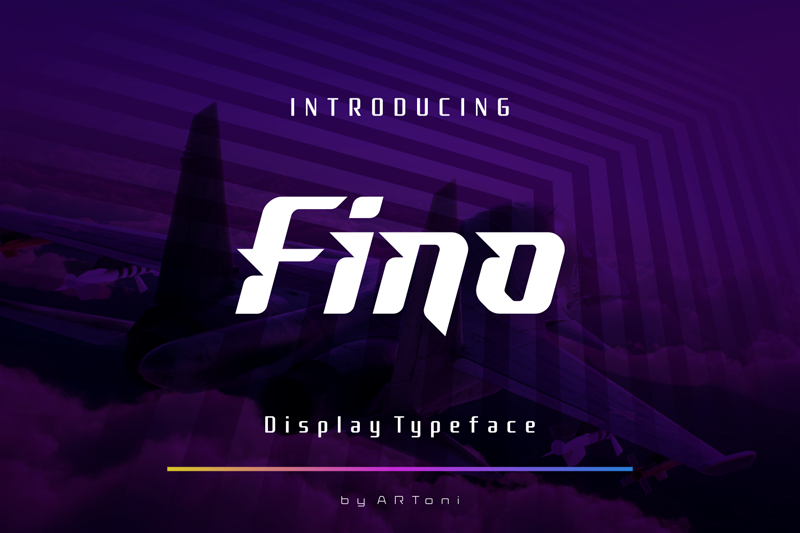
Preview and download Fino Font. Created by Anthonie Van Hayu in Techno Sci-fi styles with Free for personal use license.
Fino is a cool and sweet display font with a fun feel. Get inspired by its dynamic look. By installing or using this font, you are agree to the Product Usage Agreement: 1. This font is ONLY for PERSONAL USE. NO COMMERCIAL USE ALLOWED! 2. You are requires a license for PROMOTIONAL or COMMERCIAL use. 3. Any question fill free to ASK ayuda.smd@gmail.com THANKS ------------------- INDONESIA: Dengan meng-install font ini, anda dianggap mengerti dan menyetujui semua syarat dan ketentuan penggunaan font dibawah ini: 1. Font ini hanya dapat digunakan untuk keperluan "Personal Use", atau untuk keperluan yang sifatnya tidak "komersil", alias tidak menghasilkan profit atau keuntungan dari hasil memanfaatkan/menggunakan font saya. Baik itu untuk individu, Agensi Desain Grafis, Percetakan, atau Perusahaan/Korporasi. 2. DILARANG KERAS menggunakan atau memanfaatkan font ini untuk kepeluan Komersial, baik itu untuk Iklan, Promosi, TV, Film, Video, Motion Graphics, Youtube, atau untuk Kemasan Produk ( baik Fisik ataupun Digital) atau Media apapun dengan tujuan menghasilkan profit/keuntungan. 3. Menggunakan font ini untuk kepentingan Komersial apapun bentuknya TANPA IZIN dari saya, akan dikenakan biaya EXTENDED LICENSE atau 100 kali lipat dari Lisensi Standard. Informasi tentang Lisensi apa yang akan anda perlukan, silahkan menghubungi saya: Email: ayuda.smd@gmail.com More... |